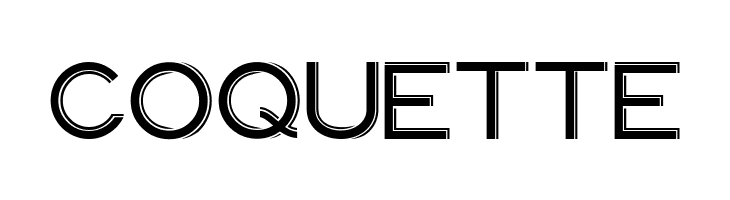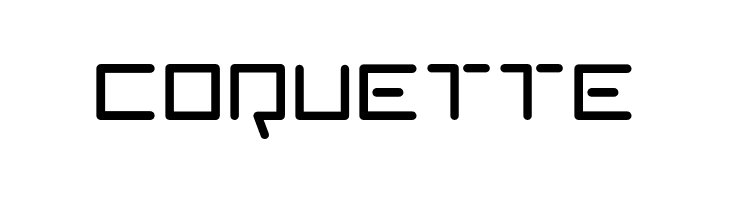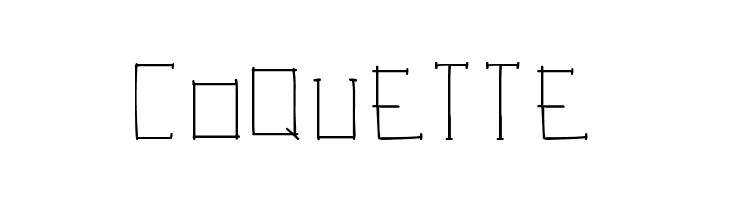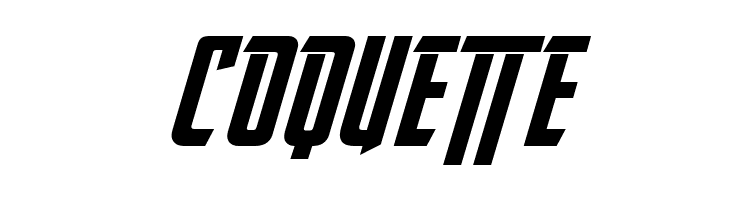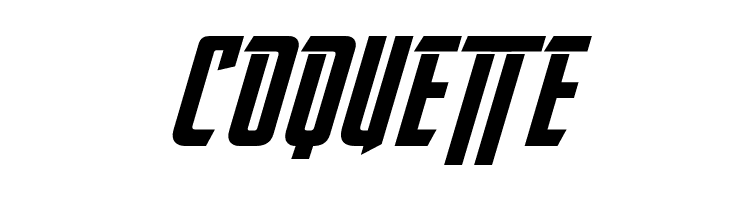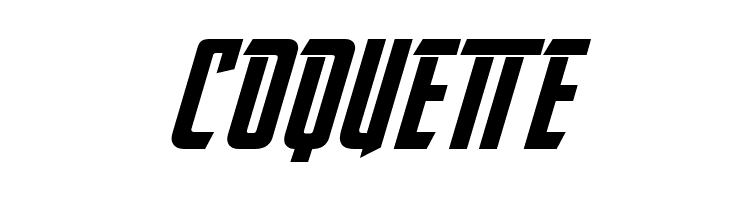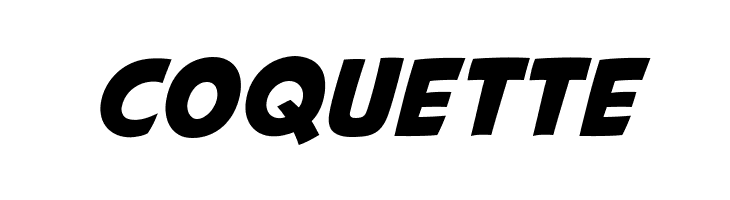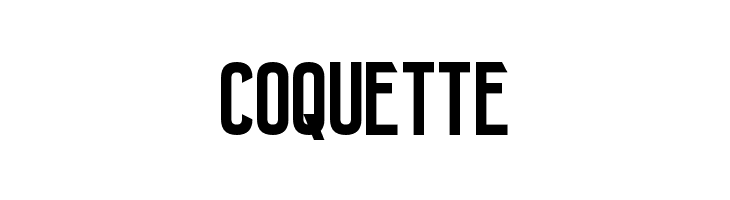
A futuristic, geometric font with clean lines and angular shapes.
A modern, geometric font with a double-line structure and rounded edges.
A bold, dynamic font with angular lines and a slanted orientation, perfect for impactful designs.
A bold, italicized typeface with a dynamic and heroic style.
A bold, italicized font with a dynamic and futuristic style.
A bold, angular font with a dynamic and futuristic style.
A bold, italicized font with strong, dynamic letterforms and a modern, impactful style.
A bold, slanted font with a dynamic and powerful style.
A bold, modern font with a slightly condensed style and strong lines.